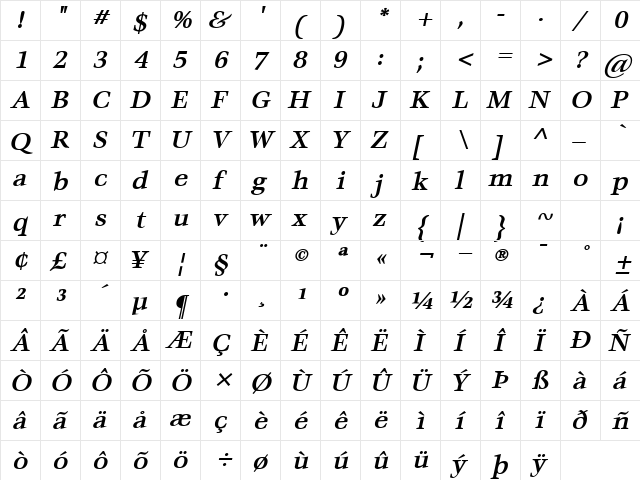
Mature BoldItalic Font Preview
Design Context for Mature Typeface
Mature takes a measured approach to typography — its balanced proportions and neutral character make it a reliable workhorse for both digital and print work. Its italic angle brings a sense of urgency and motion to the letterforms. The heavy weight commands attention and anchors typographic hierarchies.
Pro Tip: Try Mature for annotation and caption copy alongside an upright companion — the contrast in angle creates a dynamic but ordered typographic system.